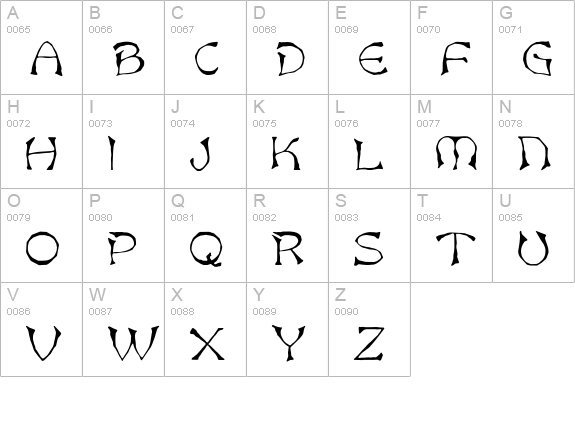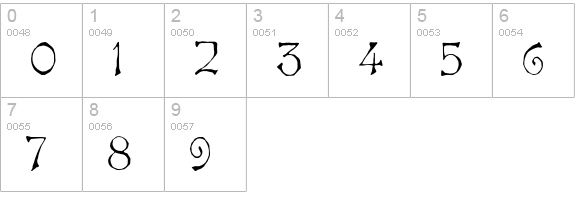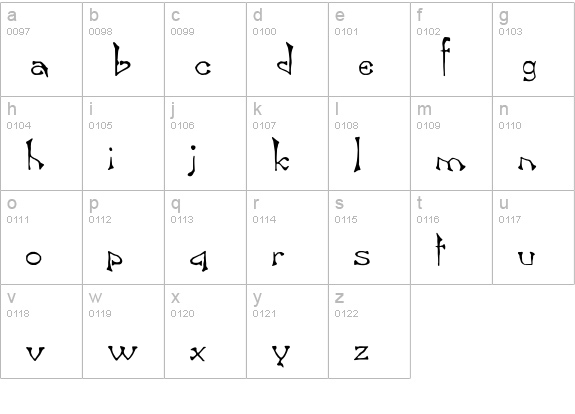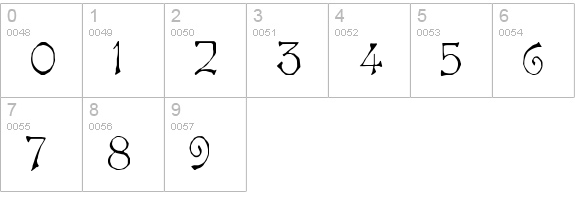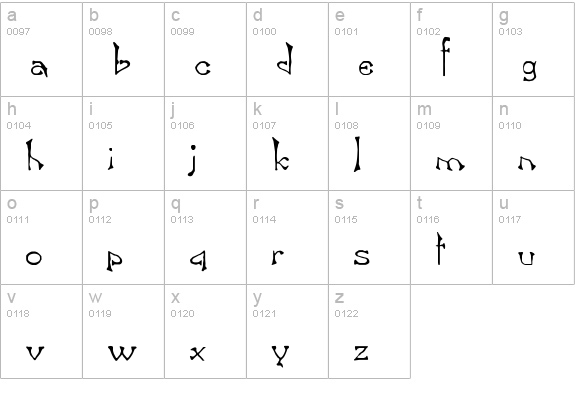
BambooFont Font Details
Introducing BambooFont, a beautifully crafted font inspired by the elegance and simplicity of bamboo. This unique typeface combines modern design elements with a touch of nature, creating a versatile and stylish font suitable for a wide range of design projects. BambooFont is a free font that embodies a sense of tranquility and sophistication, making it perfect for branding, logos, packaging, and more. Its clean lines and organic shapes bring a sense of balance and harmony to any design. You can freely download BambooFont at FontsMarket.com and elevate your projects with this refreshing and eye-catching typeface. Embrace the beauty of nature with BambooFont and add a touch of zen to your designs today.